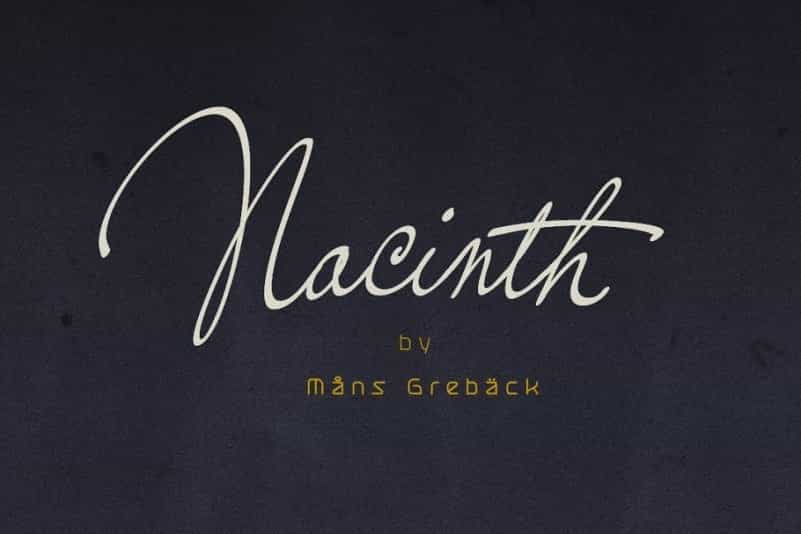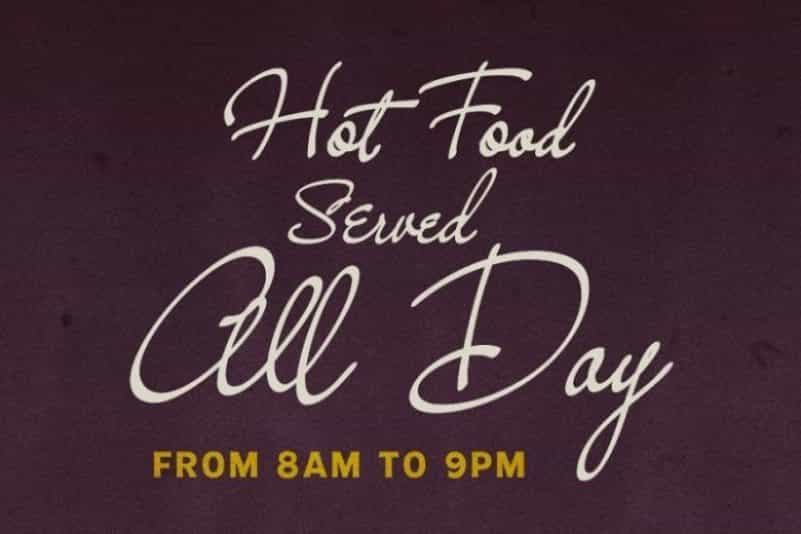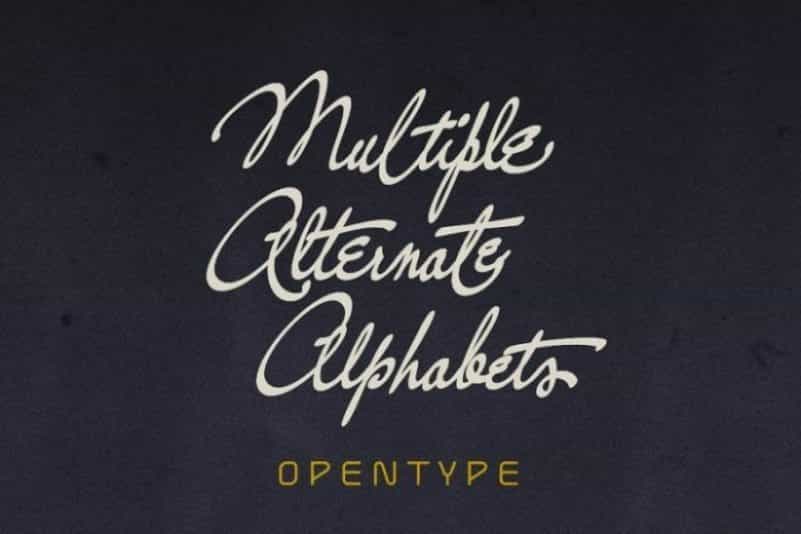
Nacinth is a wild calligraphy script font drawn and created by M. aka Måns Grebäck in the years 2018 to 2020. Its open shapes are inspired by mid-century advertising, is full of life and emits liberty and optimism. At the same time font has managed to abstain from its virtual state an excellent quality perhaps only seen within certain families of calligraphy newly drawn three weights: Nacinth Thin, Nacinth Medium and Nacinth Bold.